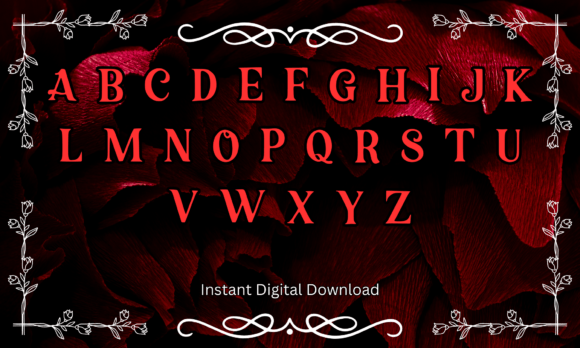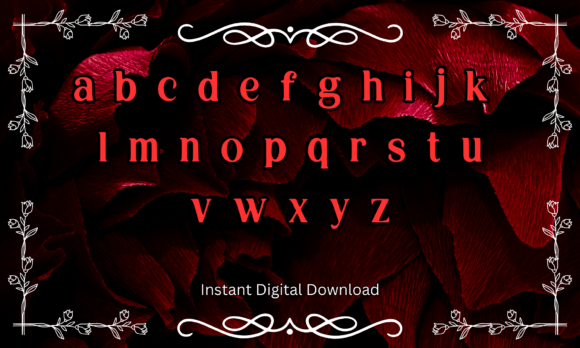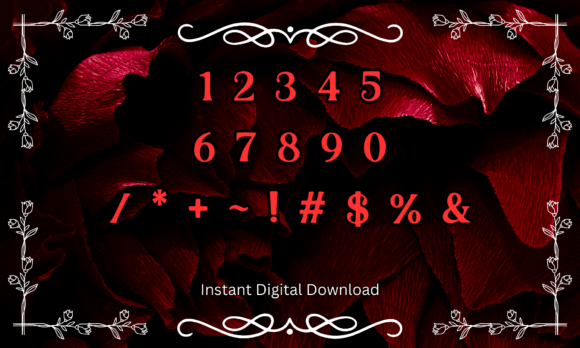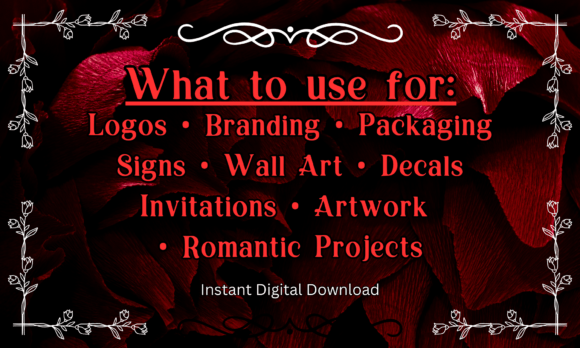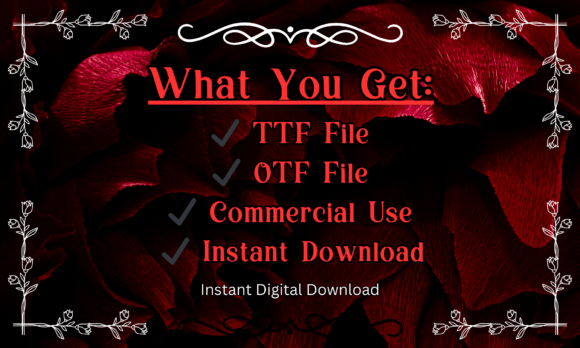
Fall in Love with the Darkness: Unleashing the Power of Dark Romance Font
Have you ever been in the midst of a design project, only to find yourself stuck on one thing: the perfect font? I recall a particularly frustrating experience while working on a gothic-inspired branding campaign. My client wanted a font that embodied the mystery and allure of the dark romance genre, but I just couldn’t seem to find the right fit. That was until I stumbled upon the Dark Romance Font. 🌹
This dramatic gothic-style display font has been a game-changer for me, and I’m excited to share its beauty with you. Inspired by forbidden love, vampire romance, and moody fantasy aesthetics, Dark Romance Font is perfect for creators who love passion, mystery, and beauty wrapped in shadows.
What Makes Dark Romance Font Special?
With bold letterforms and elegant curves, this font is ideal for a variety of projects, including:
- Dark romance book covers
- Gothic love quotes
- BookTok & Bookstagram graphics
- Vampire & fantasy artwork
- Valentine designs with edge
- Tattoos & lettering art
- Stickers & sublimation
- Apparel & merchandise
Honest Review: The Good and the Great
Here’s what I love about Dark Romance Font: ✨
- ✅ Elegant and bold letterforms that command attention
- ✅ Perfect for creating eye-catching titles and graphics
- ✅ Well-suited for dark romance and gothic-inspired designs
- ✅ Includes uppercase letters, lowercase letters, numbers, and basic punctuation
And, like any font, it’s not without its quirks: 🤔
- ⚠️ Some users may find the font a bit too dramatic for certain projects
- ⚠️ Limited use for body text due to its display font nature
- Experiment with OpenType features, such as stylistic alternates, to add visual interest
The Story Behind Dark Romance Font
The Dark Romance Font was inspired by the allure of forbidden love and the mystery of the unknown. Its creator sought to craft a font that would evoke the drama and passion of the dark romance genre, while also being versatile enough for a range of design applications.
Q: Is Dark Romance Font suitable for body text?
A: While Dark Romance Font is a beautiful display font, it’s not ideal for body text due to its bold and dramatic nature.